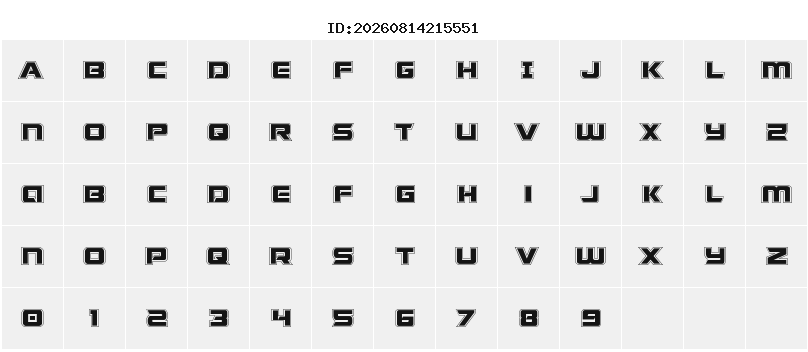
About Starduster Academy.ttf
Starduster Academy.ttf is a modern, elegant sans-serif font designed for ultimate readability and visual harmony. Perfect for branding, headlines, web design, and print materials.